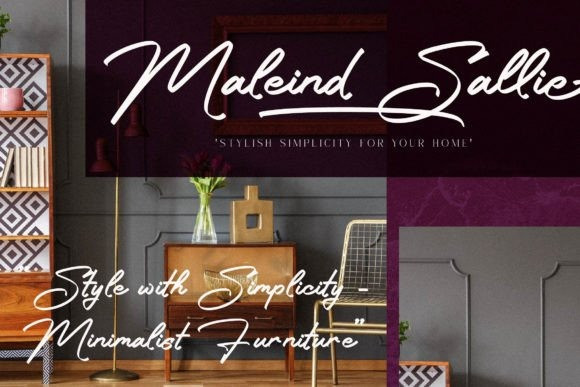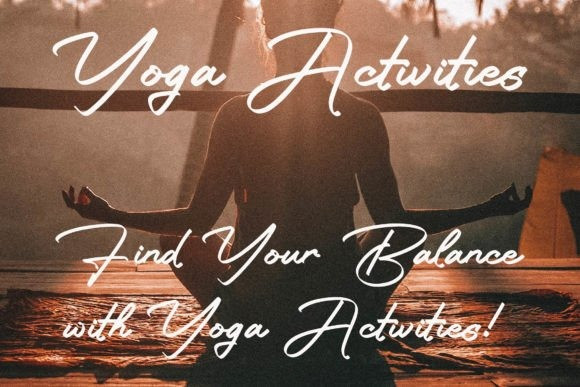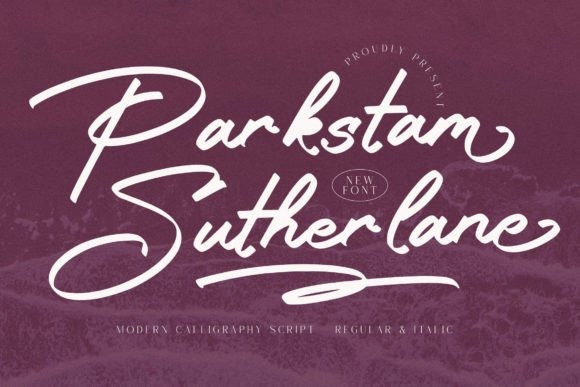
Parkstam Sutherlane Font
Parkstam Sutherlane Font – Modern Calligraphy Script suitable for any projects such as logos, branding projects, homeware designs, product packaging, mugs, quotes, posters, shopping bags, t-shirts, book covers, name cards, invitation cards, greeting cards, labels, photography, watermark, special events, and all your other lovely projects that need a beautiful script taste.